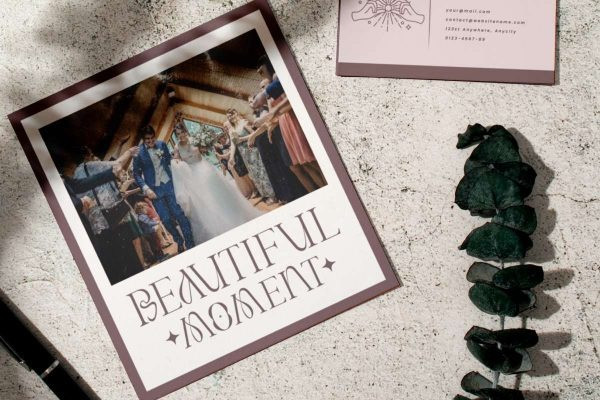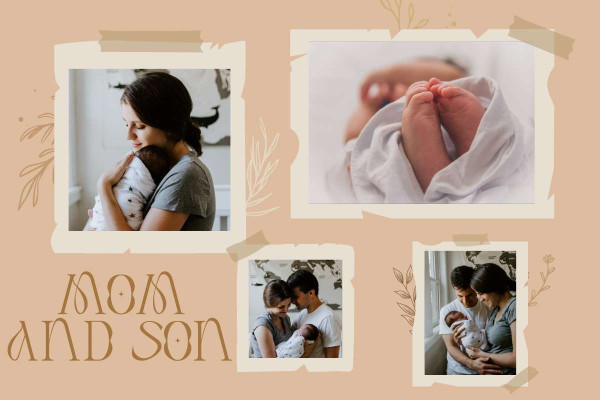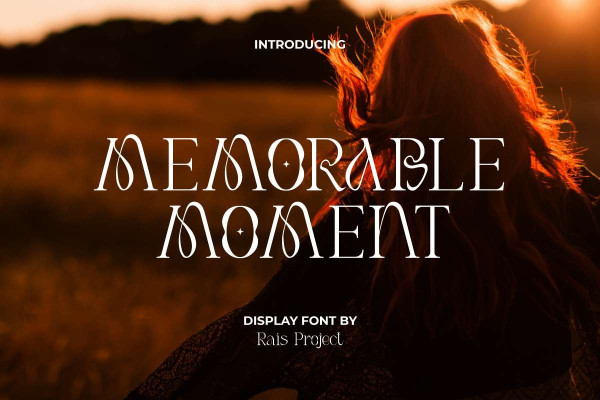
Memorable Moment Font
Memorable Moment Font is a beautiful fancy display font. This font has a looks that can be used on a variety of display types and make you feel elegant! Such as brand logo, business card, cover, custom design, invitation, label, menu, poster, product packaging, quote, signage, website, and more!
Memorable Moment Font includes full set of Uppercase and Lowercase Basic Characters, Numerals, and large range of punctuation. This font has thin lines with gentle curves that make it feel so feminine and will be suitable for various industries, such as accessories, café, fashion, festival, interior design, photography, printing, publishing, stuff, wedding or event organizer, etc.